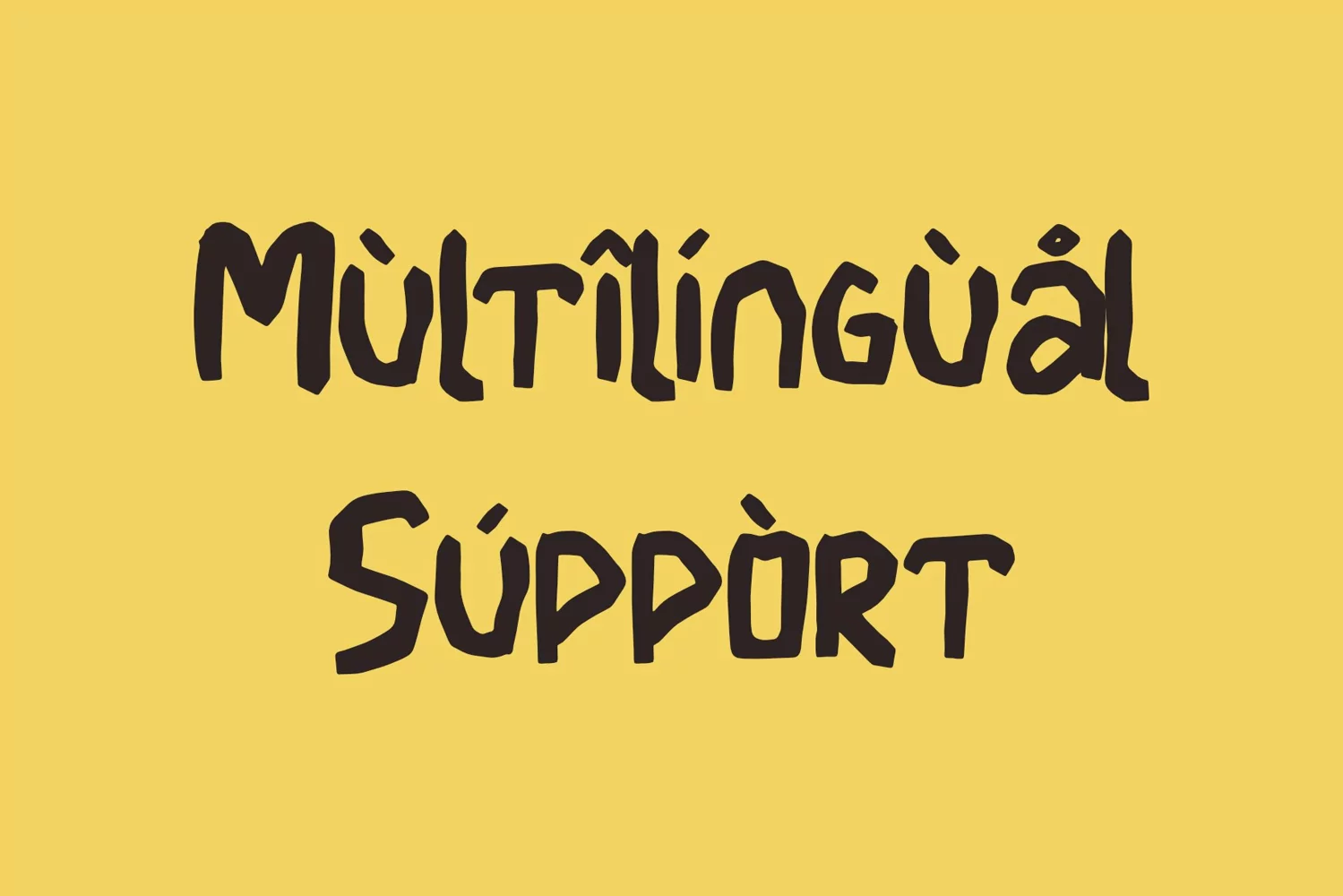
**Flinch Font**
This pair was inspired by kids poster design that i saw on some coffee shop, It was crafted by hand specially to add natural handmade feeling in its brand identity than i make it clean with pentool.
Flinch font has 172 character set included
Flinch Font is very good looking in logo, labels, t-shirt prints, product packaging, invitations, advertising and others.